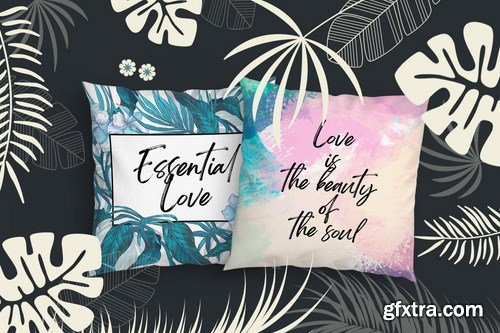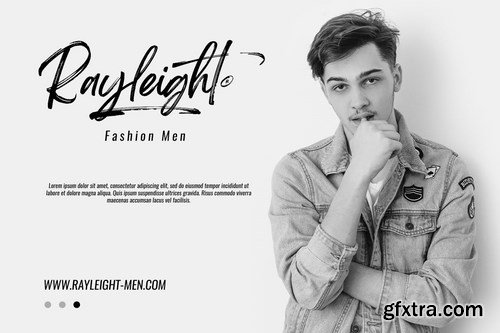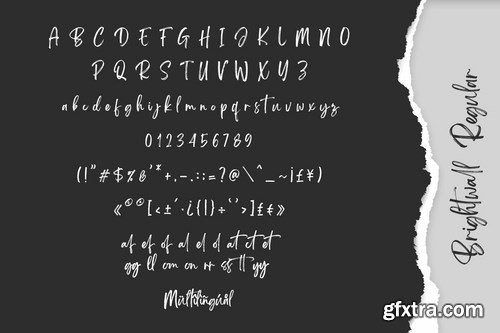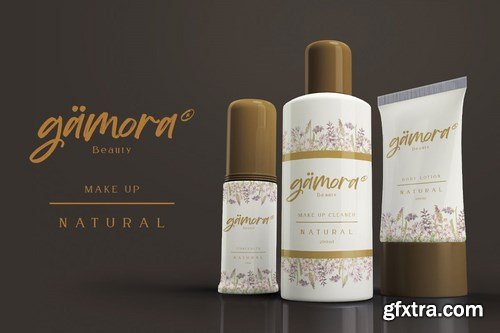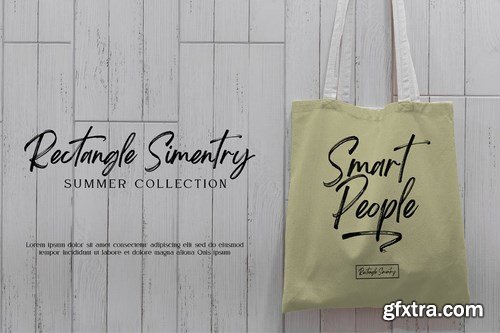
Introducing Brightwall Brush Font. Made with naturally brush. The texture from the brush font will make your design more beautiful and powerful. This font is suitable for any design like branding, quotes, t-shirt printing and etc.